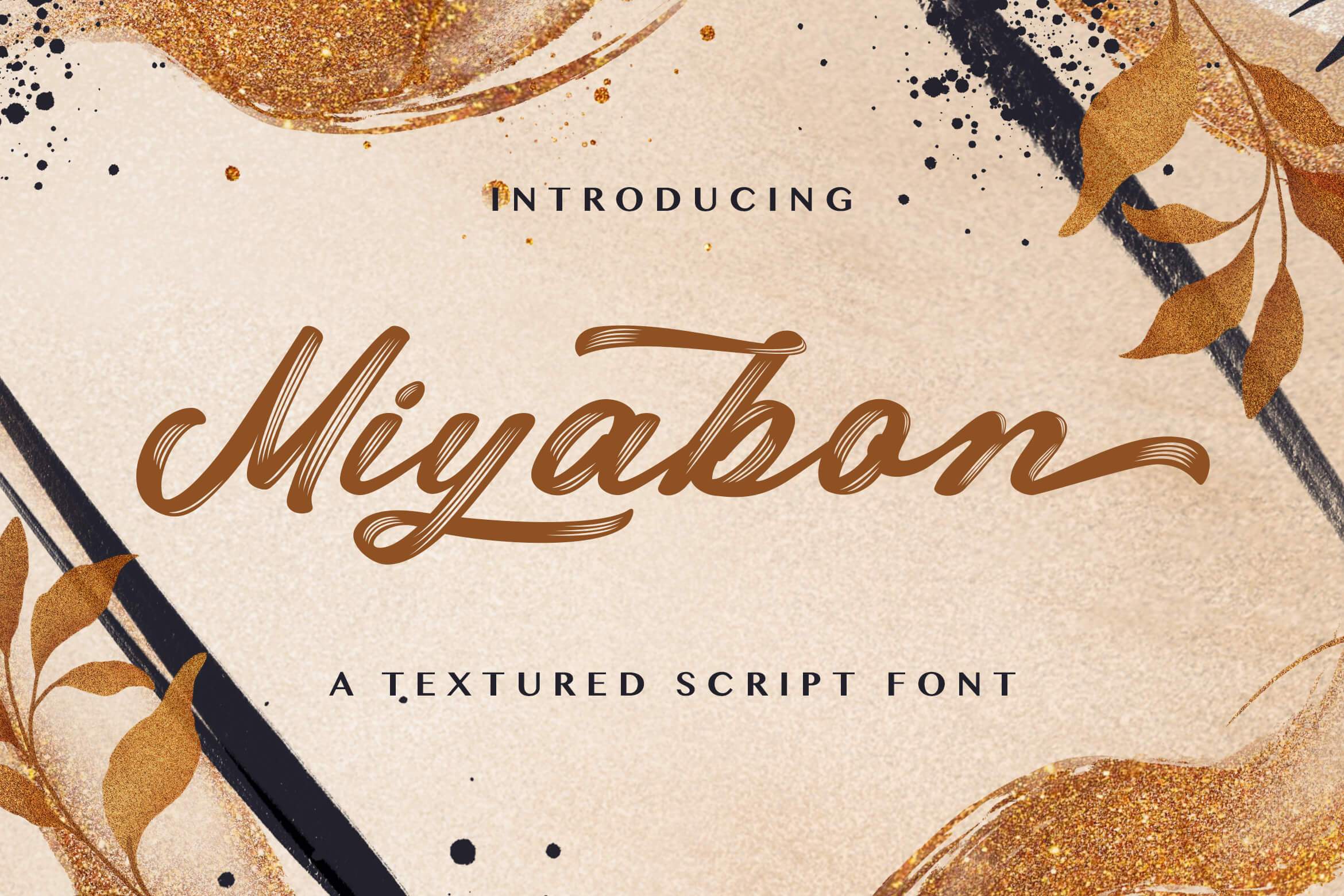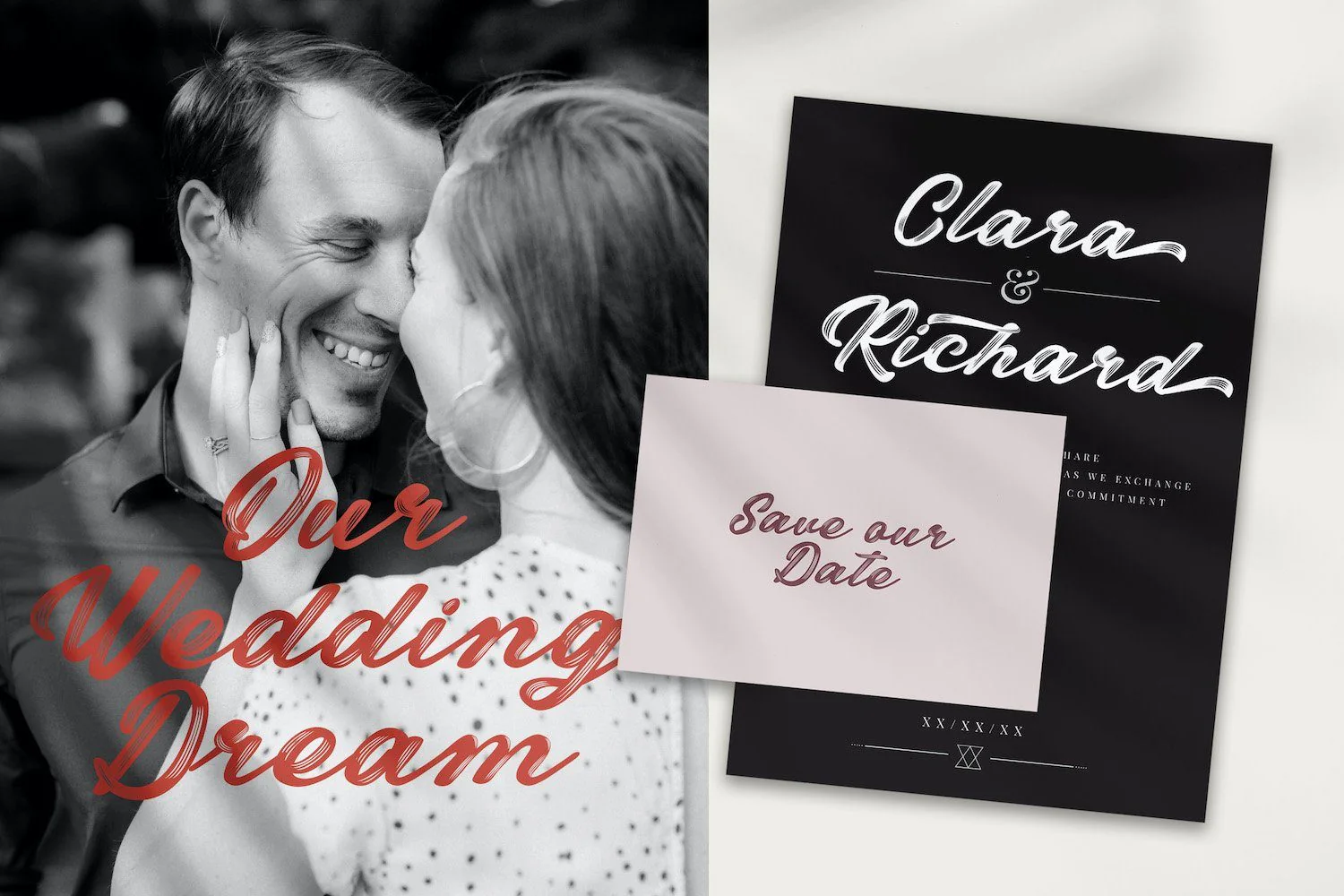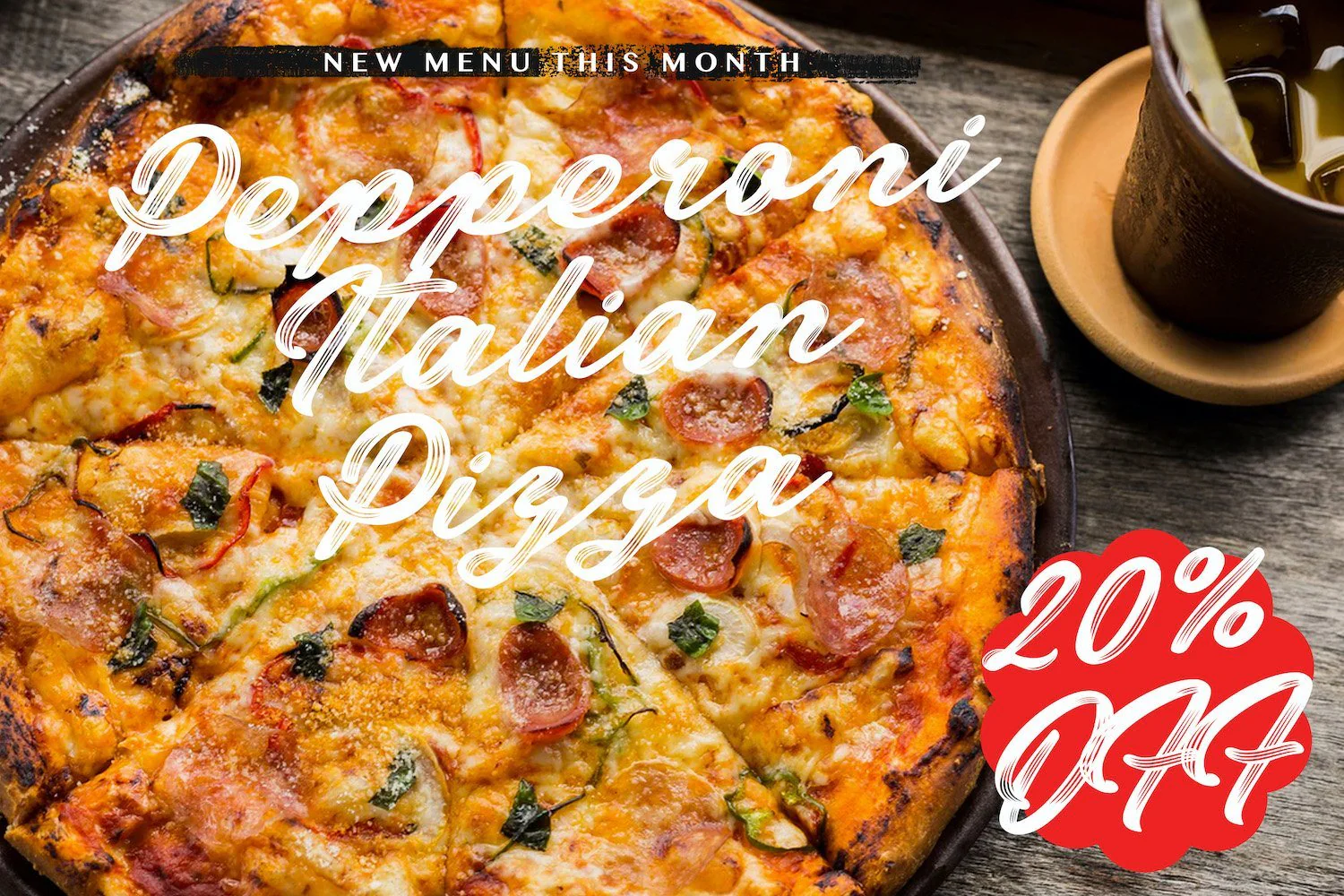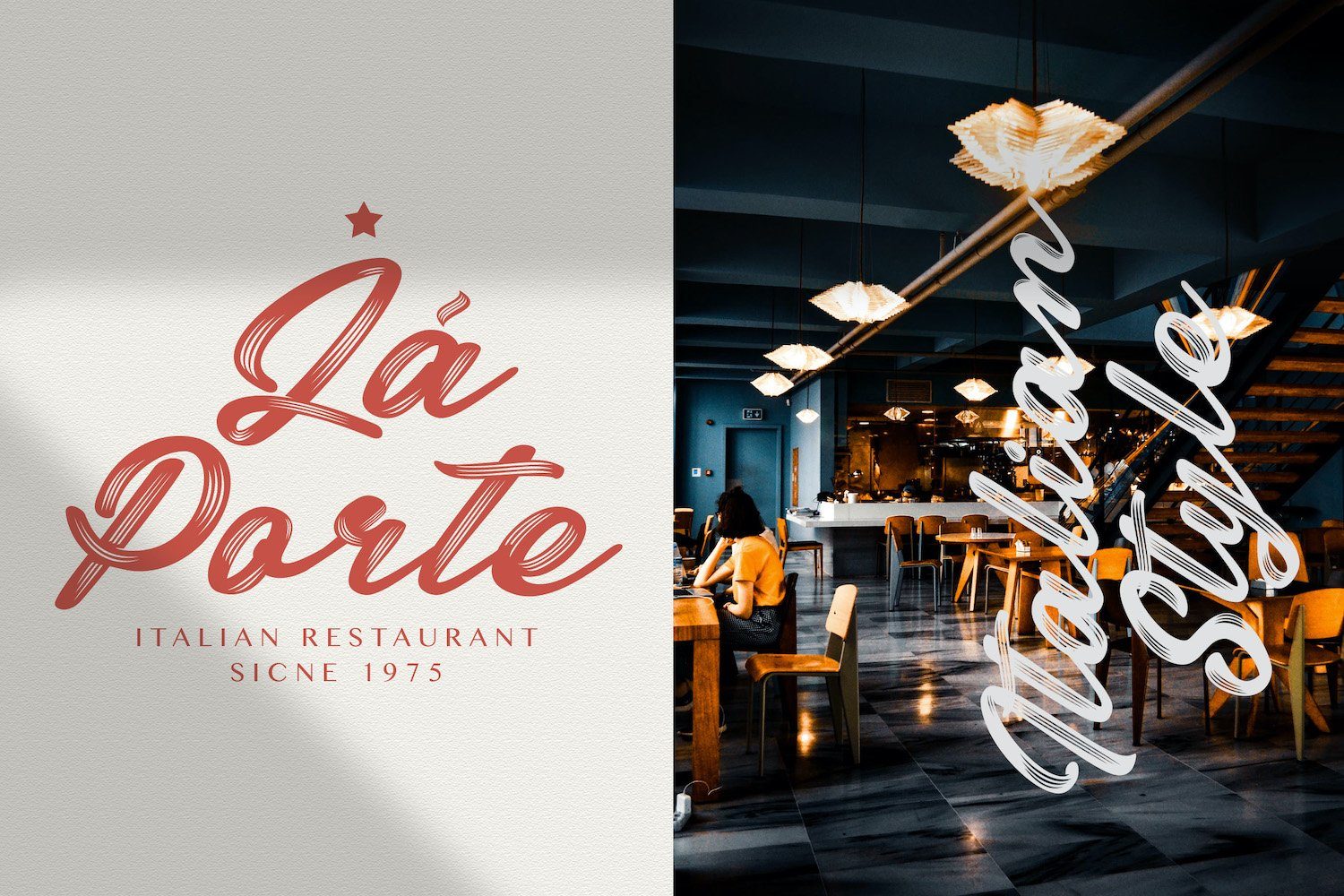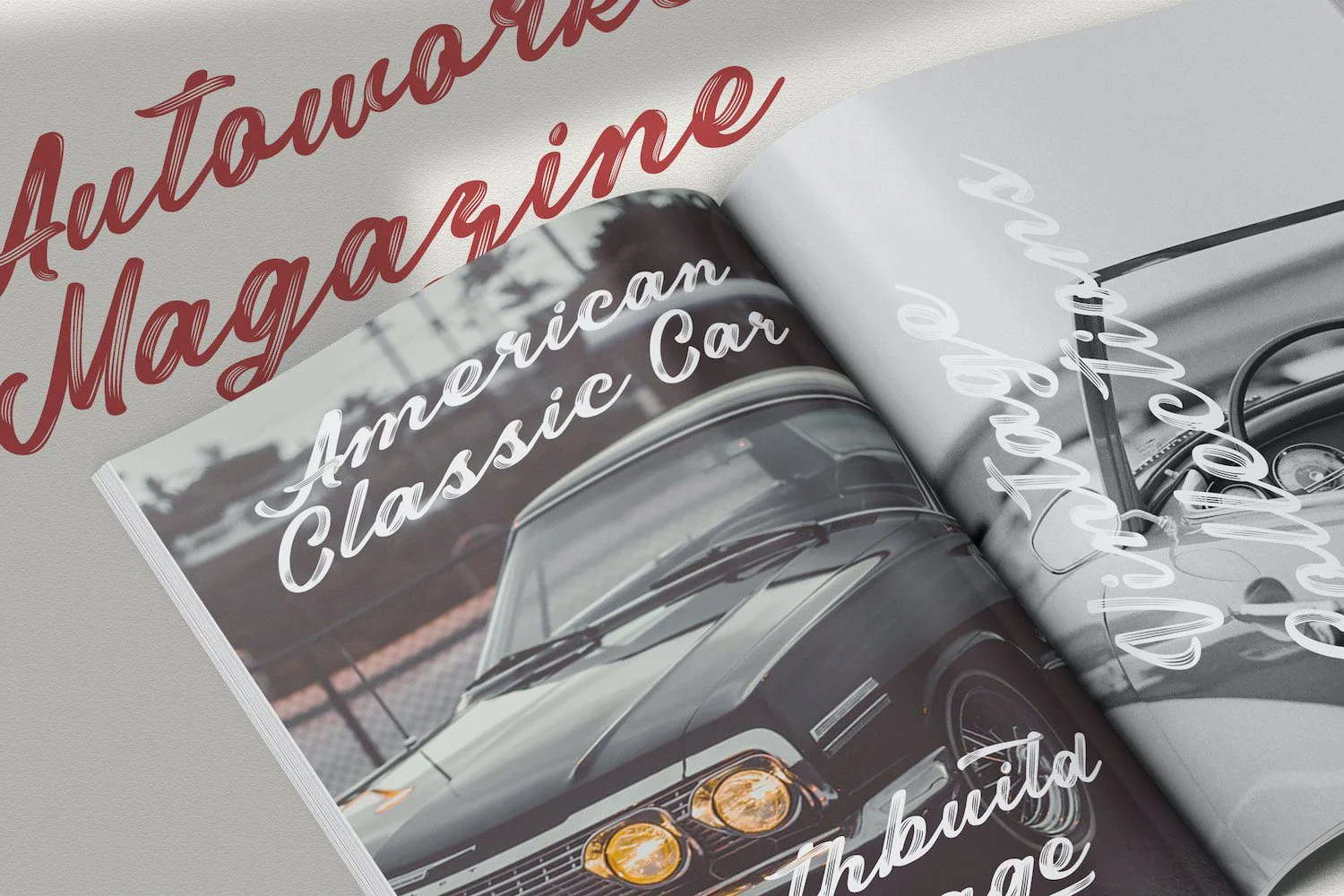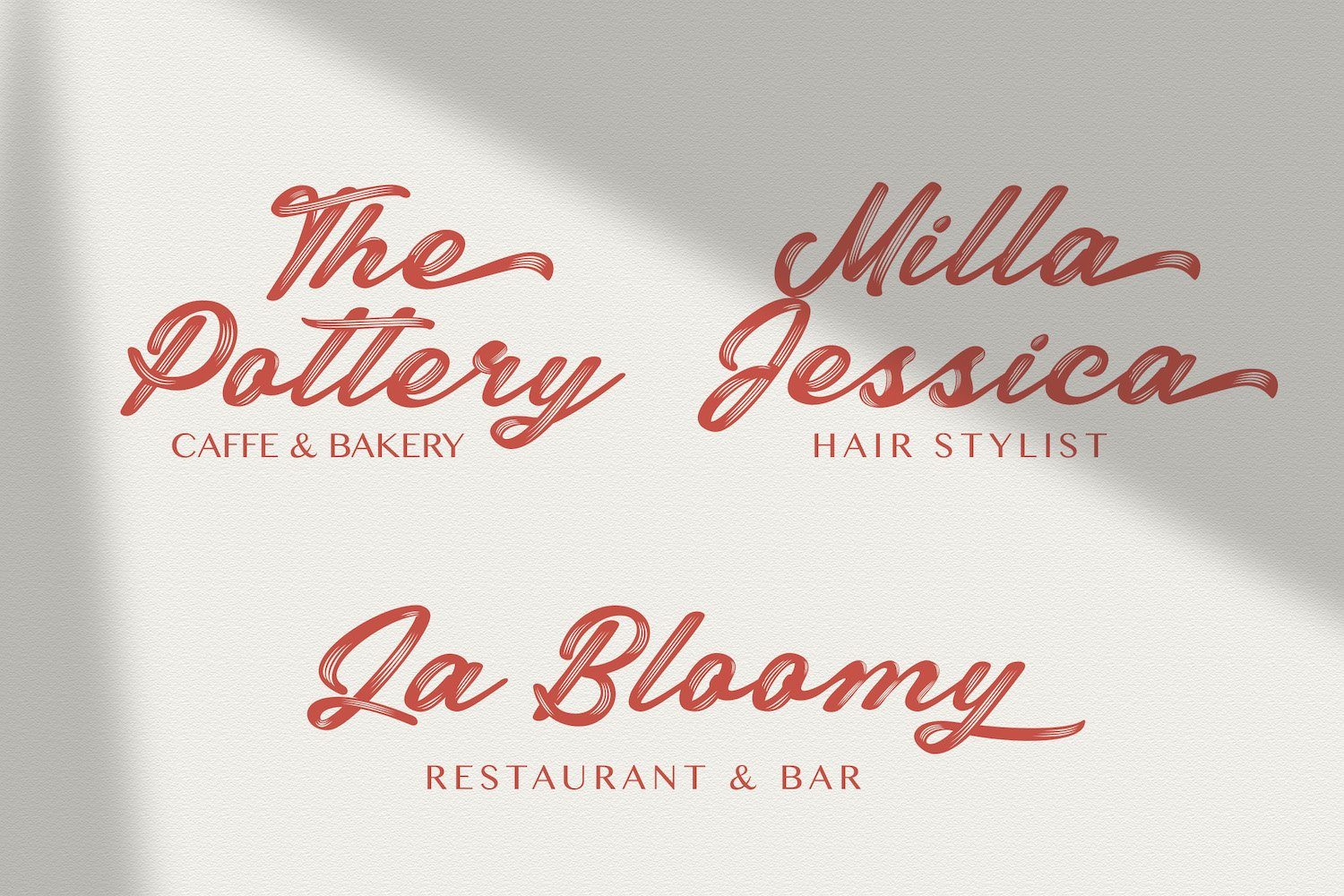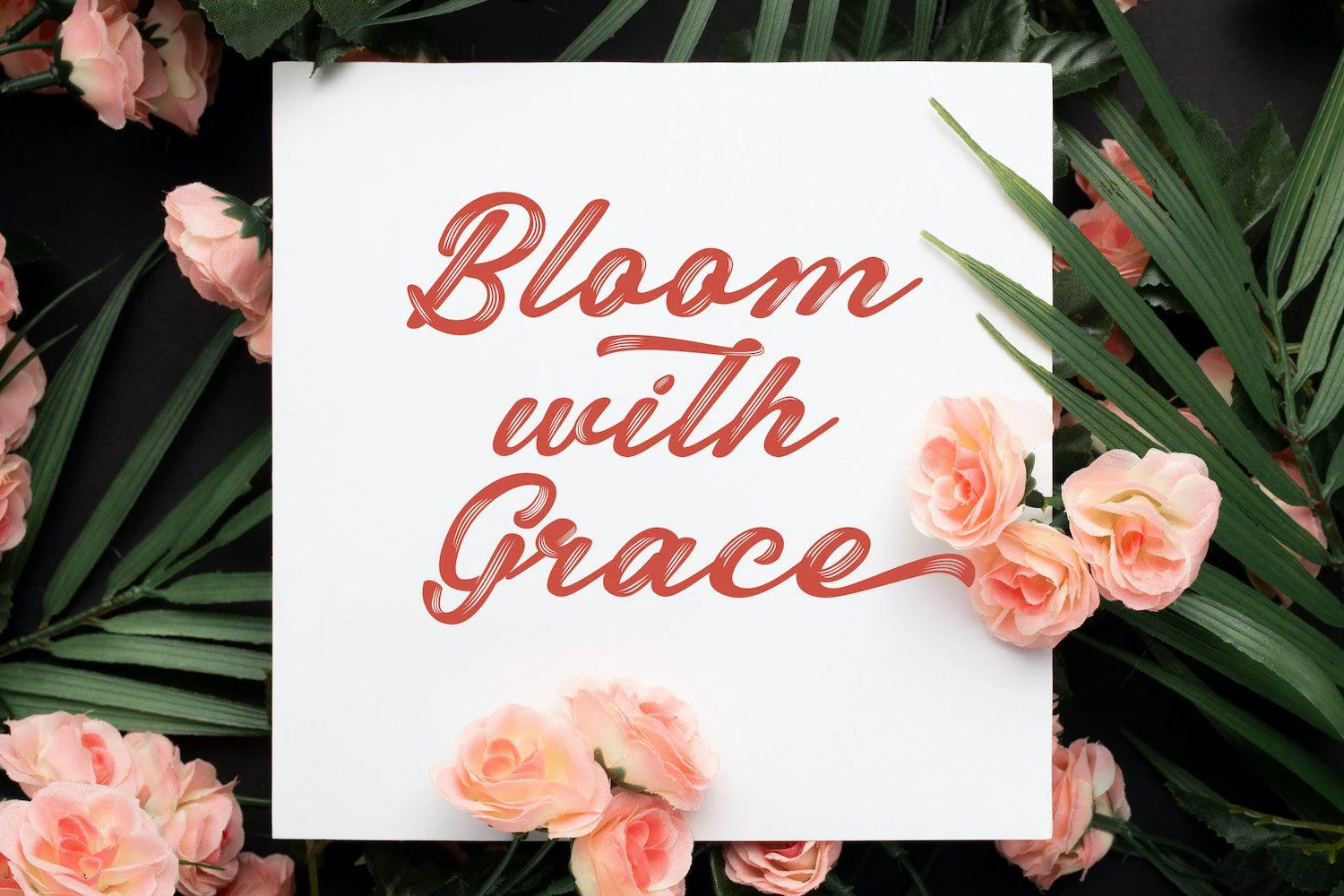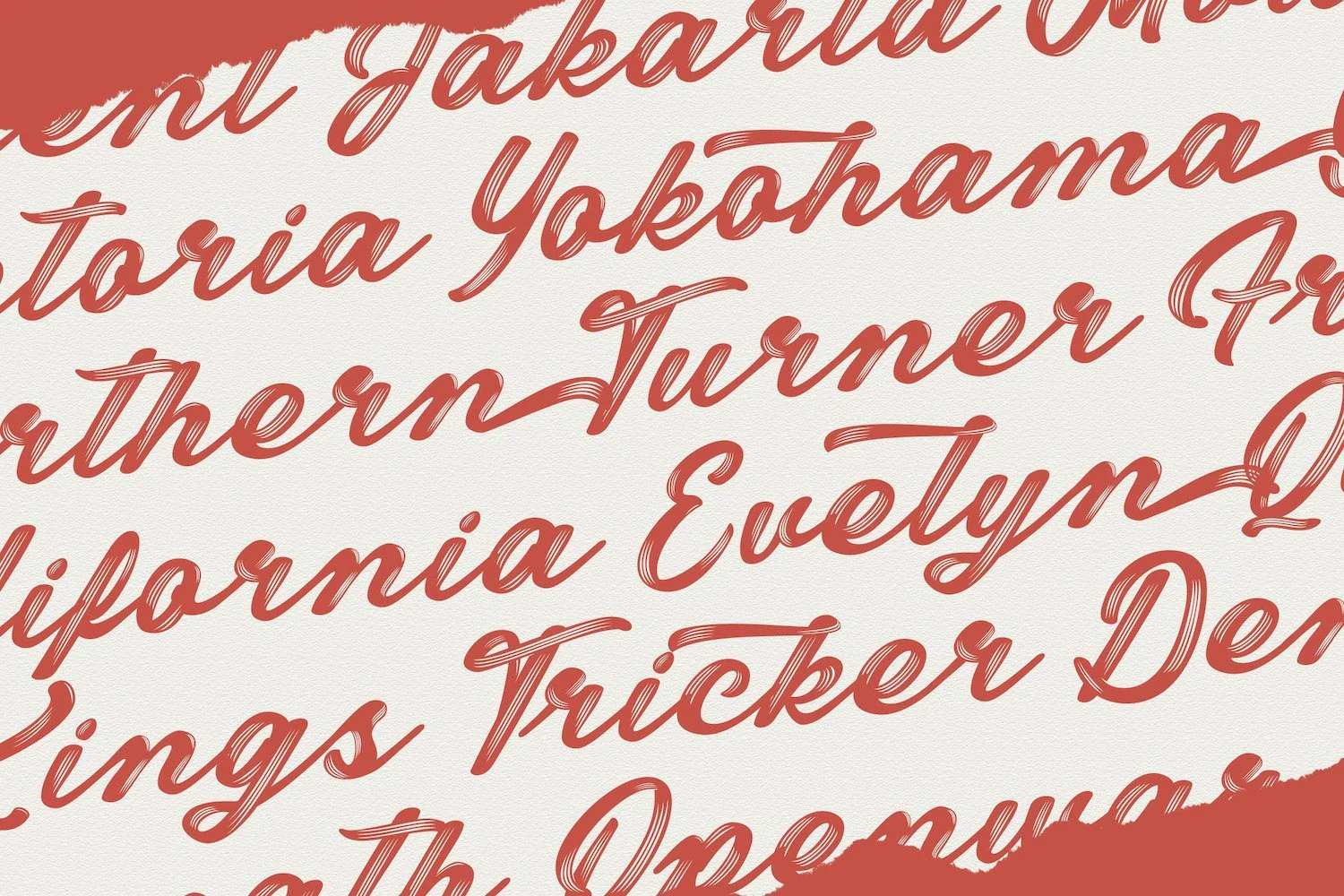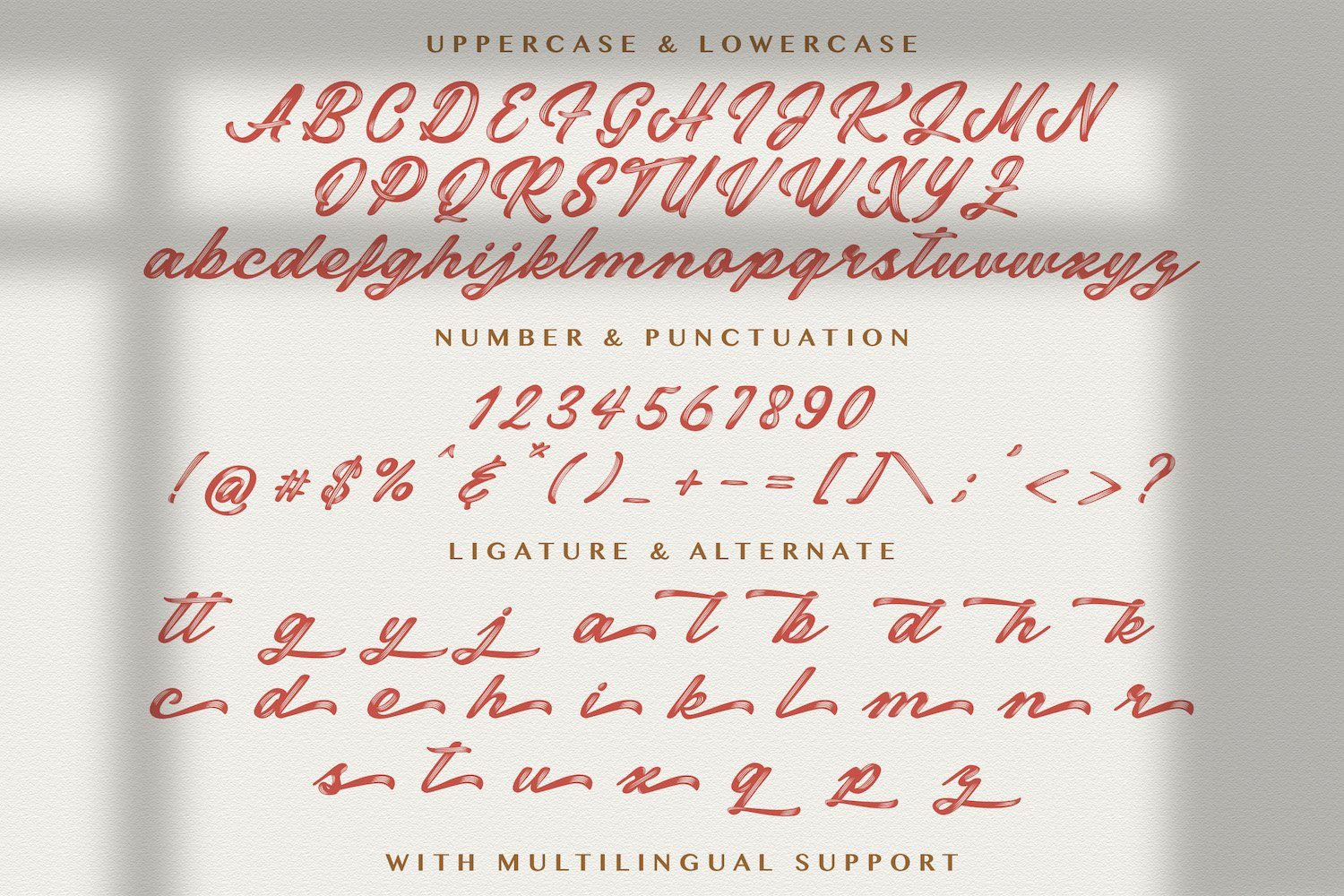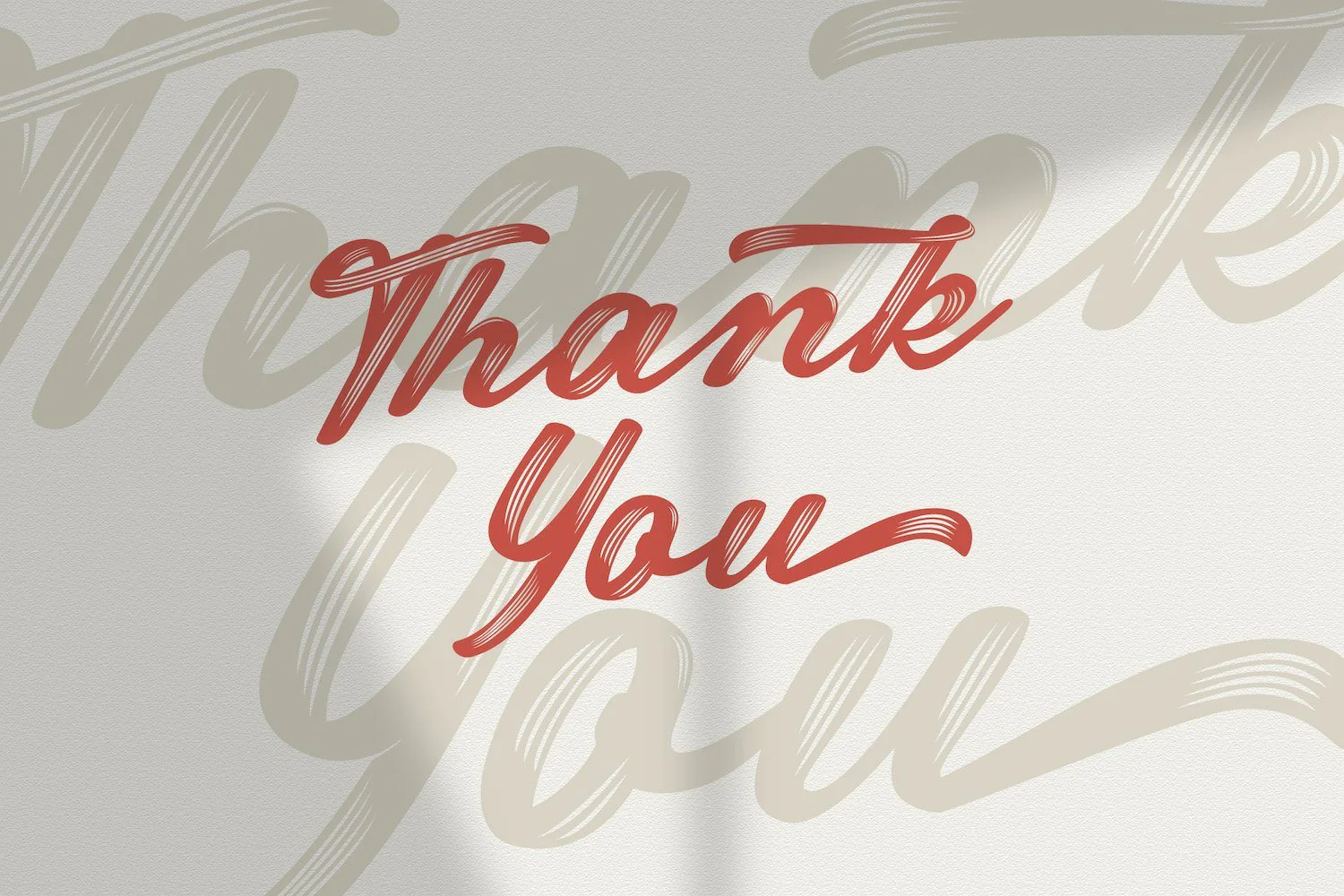
Miyabon - Textured Brush Font
Introducing Miyabon - Textured Brush Font
Miyabon is a textured handbrush font. Get inspired by its unique and beautiful style and add it to your favorite designs!
Introducing Miyabon - Textured Brush Font
Miyabon is a textured handbrush font. Get inspired by its unique and beautiful style and add it to your favorite designs!